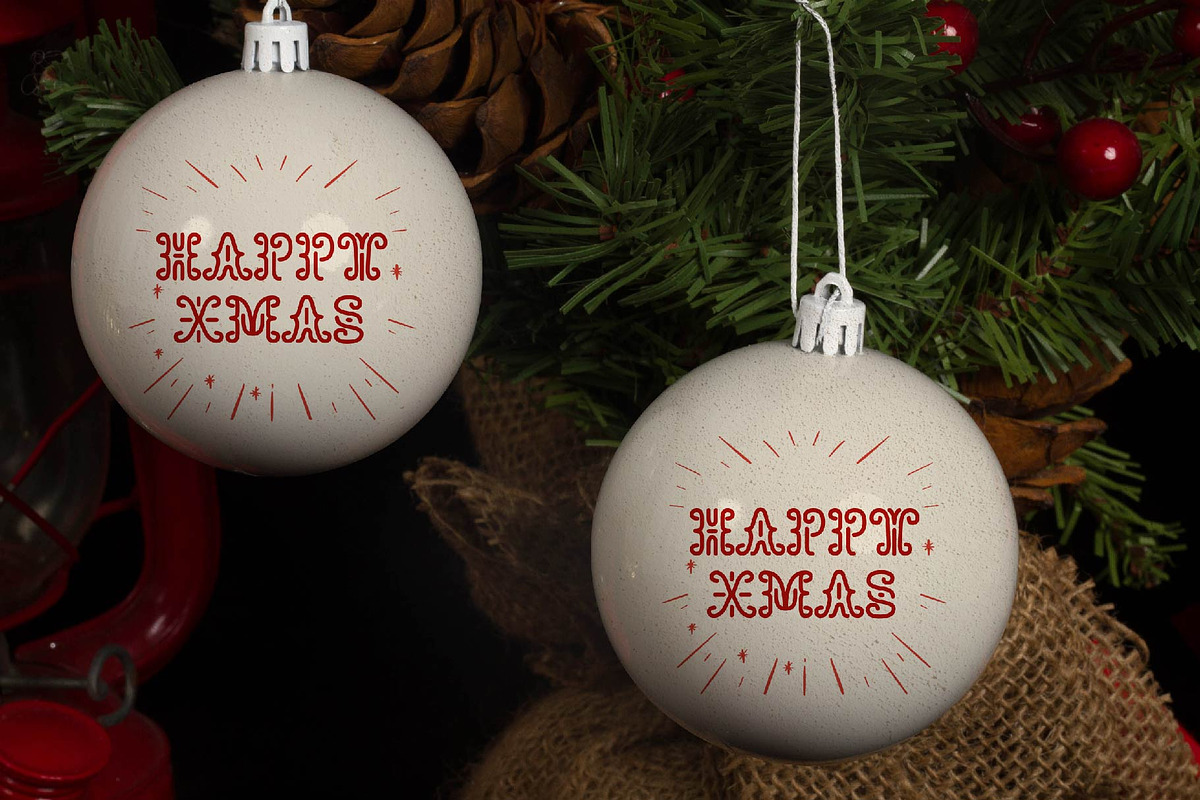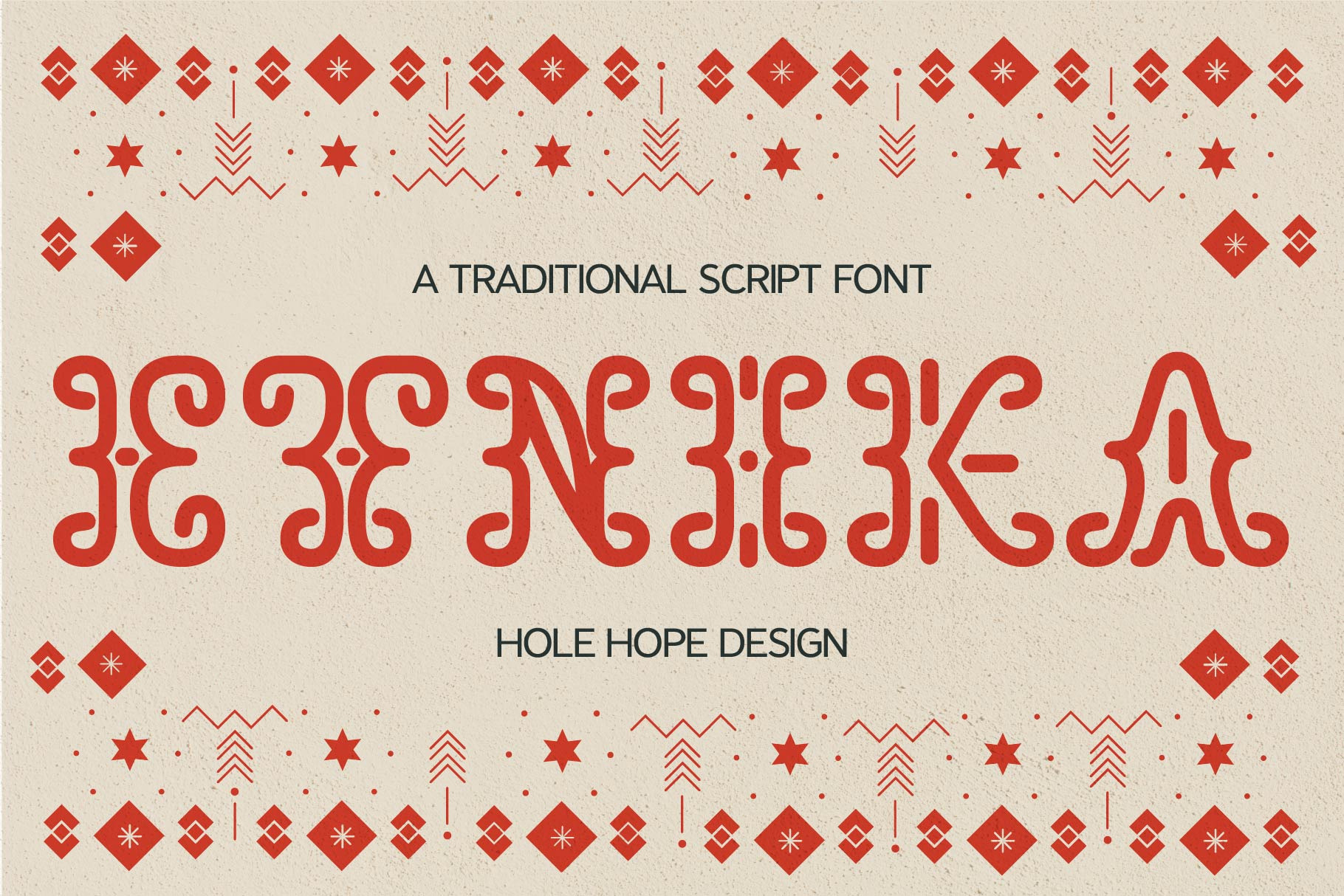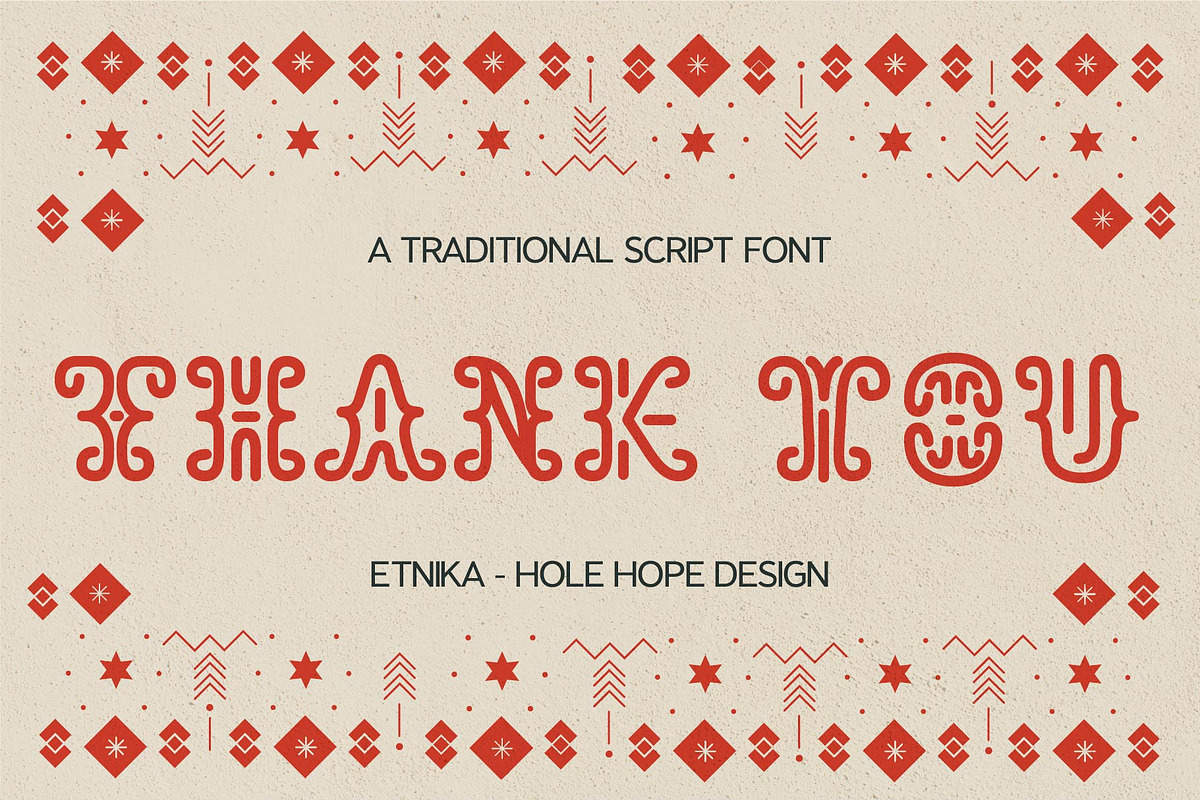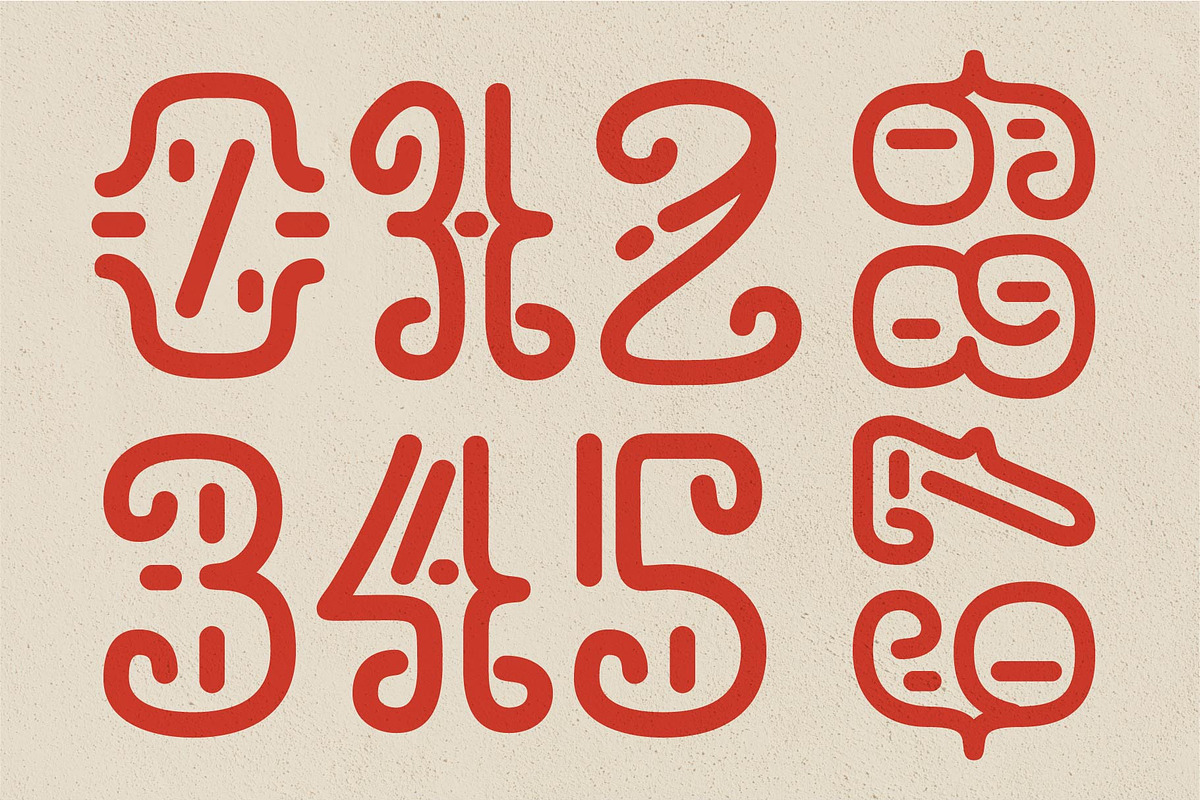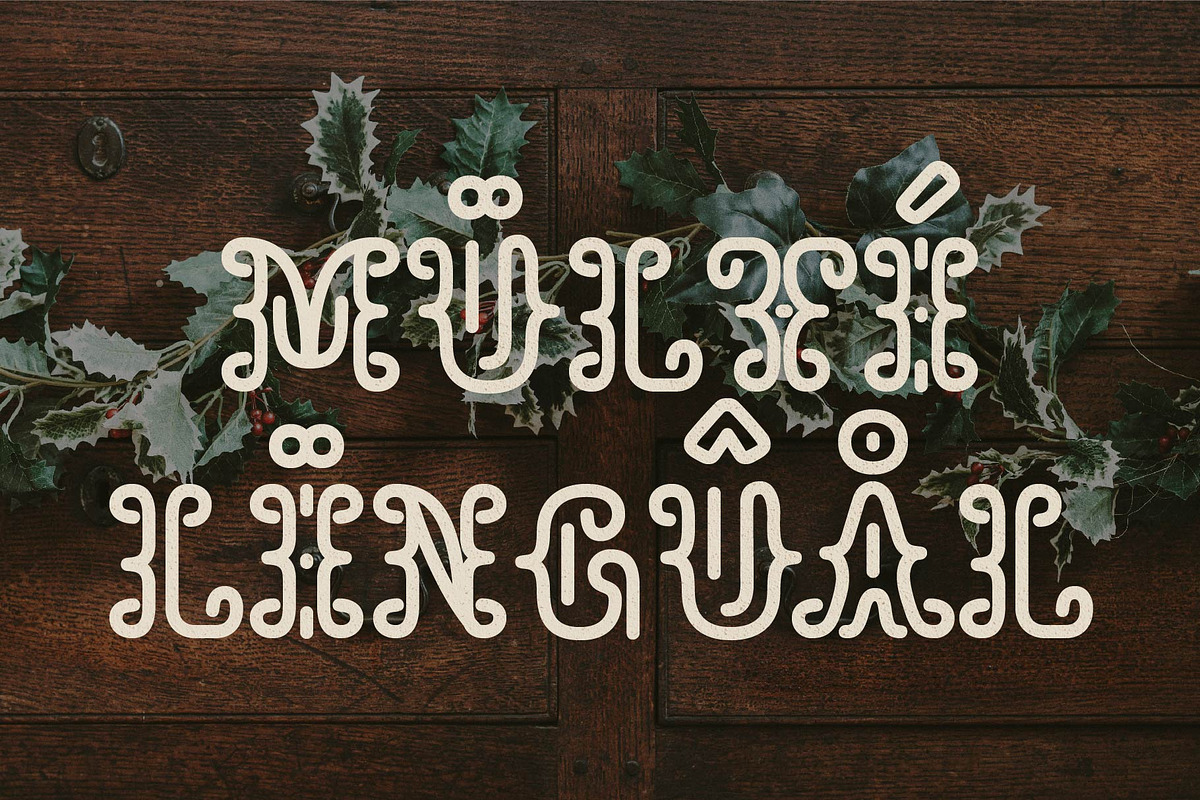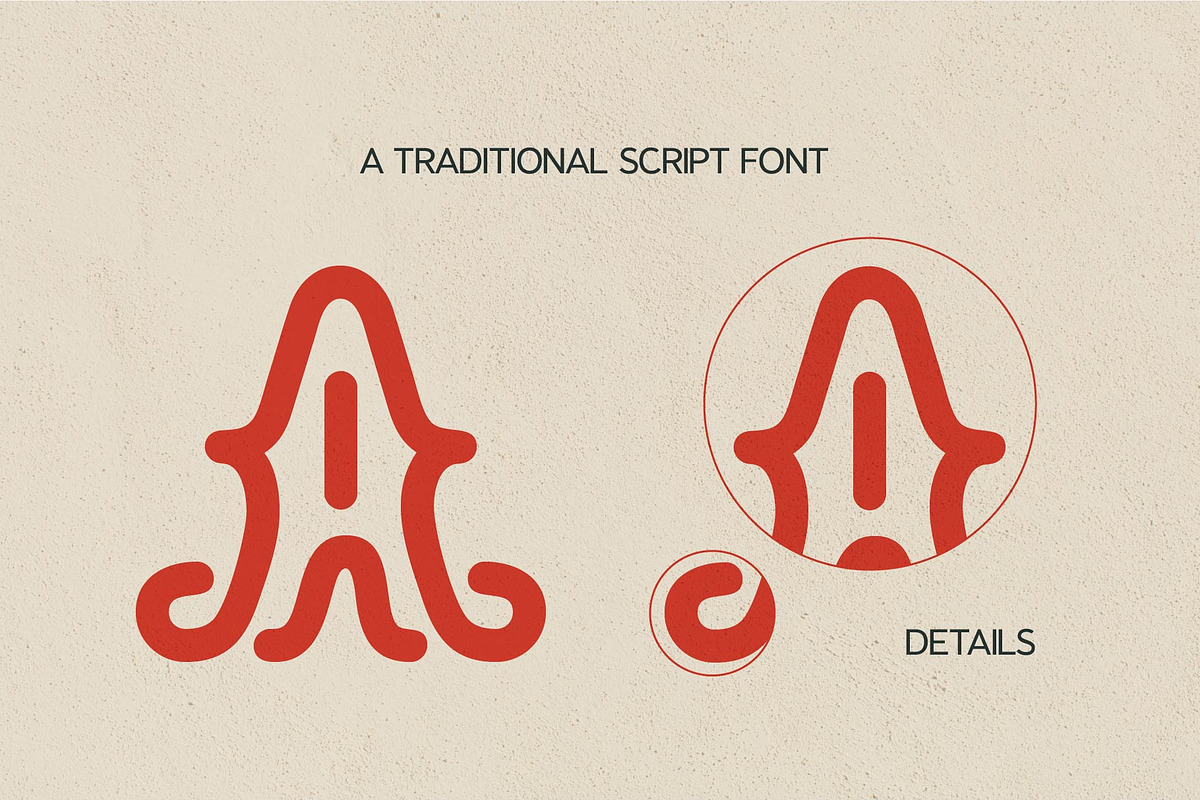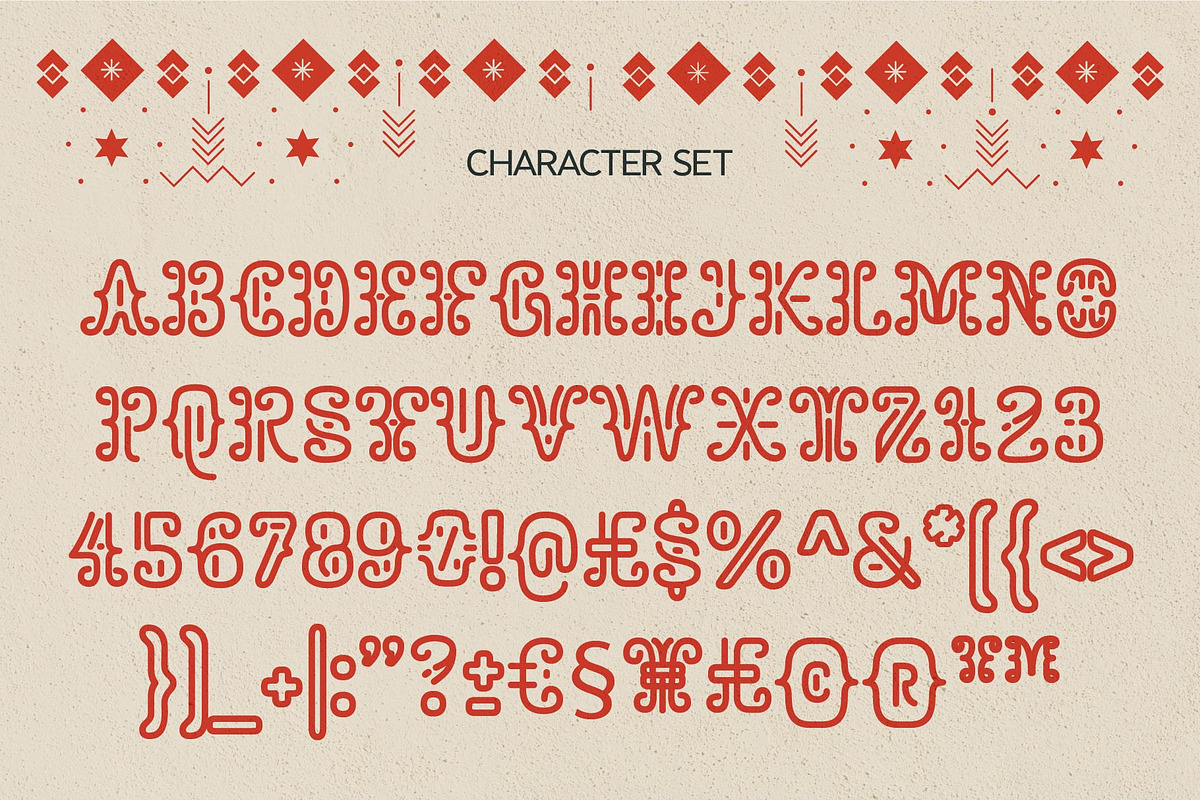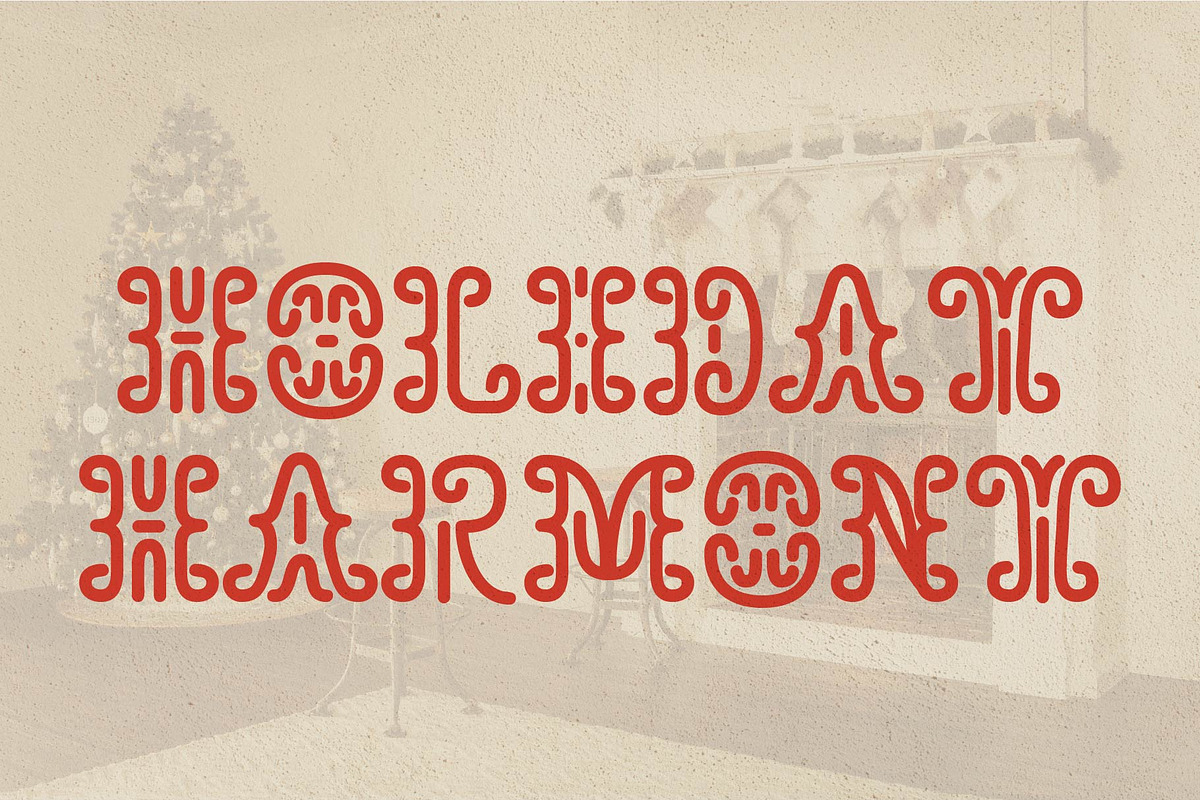
Etnika – A Traditional Script Font
Etnika – A Traditional Script Font is a graceful handwritten script inspired by ethnic calligraphy and timeless cultural lettering. It features flowing strokes, organic curves, and a warm handcrafted feel that brings authenticity and character to any design.
Perfect for logos, packaging, invitations, book covers, branding, and artisan-themed projects, Etnika blends tradition with elegance while remaining readable and expressive. This font is ideal for designs that want to convey heritage, warmth, and a personal touch.
Etnika – A Traditional Script Font features:
- Character Set
- Punctuation & Numbers